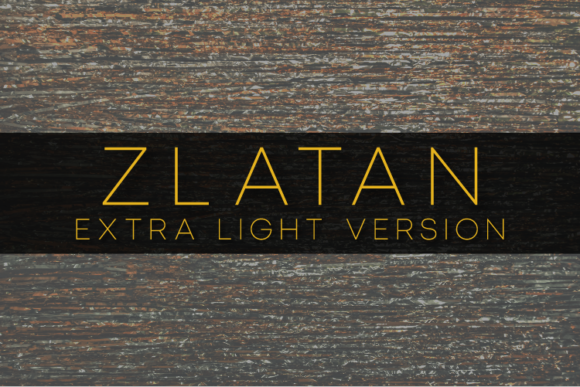
Zlatan Extra Light Font
In a world of monotonous fonts, behold Zlatan Extra Light Font, a breath of fresh air that breathes life into your designs. Its meticulously crafted characters, born from the mind of Huntype, embody a harmonious blend of balanced lines and lucid structures, resulting in a timeless sans serif masterpiece.
Zlatan is not just a font; it's an experience. Its versatility knows no bounds, effortlessly adapting to corporate presentations, eye-catching logos, and text of any dimension. Its clean and crisp appearance lends an air of sophistication to your projects, leaving a lasting impression on your audience.
Gone are the days of ordinary fonts that blend into the background. Zlatan Extra Light Font demands attention, captivating your readers with its distinct personality. It's a font that speaks volumes, conveying confidence, professionalism, and creativity in equal measure.
Zlatan is the perfect choice for those seeking a font that resonates with their brand's identity. Its timeless design ensures that your messages will remain relevant and impactful for years to come. Step into the realm of extraordinary typography with Zlatan Extra Light Font and elevate your designs to new heights.